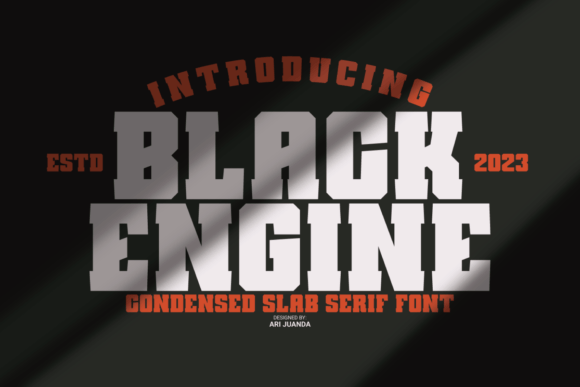
Introducing Black Engine Font: A Vintage-Inspired Slab Serif Font
The Black Engine font is a stunning, vintage-inspired slab serif font that exudes classic style and modern minimalism. With its solid foundation, strong visuals, and nostalgic motion, this font is perfect for a wide range of design projects, from jerseys and athletics branding to posters, logos, and more.
A Brief Overview of Black Engine Font
The Black Engine condensed slab serif font is built on a foundation of strength and elegance. Its vintage-inspired design makes it perfect for designers looking to add a touch of classic style to their projects. The font’s modern minimalist approach ensures that it remains clean and crisp, making it highly versatile and easy to use.
Key Features of Black Engine Font
- Vintage-Inspired Design: The Black Engine font boasts a unique, vintage-inspired design that adds a touch of classic style to any project.
- Modern Minimalist Style: Despite its vintage inspiration, the font features a modern minimalist approach that ensures it remains clean and crisp.
- Strong Visuals: The font’s solid foundation and strong visuals make it perfect for headlines, titles, and other design elements that require impact and emphasis.
- Condensed Slab Serif Design: The Black Engine font features a condensed slab serif design that makes it perfect for use in a variety of contexts, from posters and branding projects to logos and jerseys.
Use Cases for Black Engine Font
The Black Engine font is incredibly versatile and can be used in a wide range of design projects, including:
- Jerseys and Athletics Branding: The font’s strong, vintage-inspired design makes it perfect for jerseys, sports teams, and athletics branding projects.
- Posters and Flyers: The font’s bold, condensed design makes it perfect for use in posters and flyers, where impact and emphasis are key.
- Logo Design: The Black Engine font’s unique, vintage-inspired design makes it perfect for use in logo design projects, where a touch of classic style is desired.
- Branding Projects: The font’s modern minimalist approach and strong visuals make it perfect for use in branding projects, where a clean and crisp design is essential.
Benefits of Using Black Engine Font
The Black Engine font offers a range of benefits to designers, including:
- Instant Recognition: The font’s unique, vintage-inspired design ensures instant recognition and can help to establish a strong brand identity.
- Versatility: The font’s condensed slab serif design makes it perfect for use in a variety of contexts, from posters and branding projects to logos and jerseys.
- Ease of Use: The font’s modern minimalist approach ensures that it is easy to use and can be easily integrated into a wide range of design projects.
- High Impact: The font’s strong visuals and bold design make it perfect for use in headlines, titles, and other design elements that require impact and emphasis.
Design Tips for Using Black Engine Font
To get the most out of the Black Engine font, consider the following design tips:
- Use it as a Headline Font: The font’s strong visuals and bold design make it perfect for use as a headline font, where impact and emphasis are key.
- Pair it with a Sans Serif Font: The font’s vintage-inspired design pairs perfectly with sans serif fonts, which can help to create a clean and crisp contrast.
- Experiment with Colors: The font’s bold design makes it perfect for use in a variety of colors, from bold and bright to muted and pastel.
- Use it in Combination with Images: The font’s strong visuals make it perfect for use in combination with images, which can help to create a visually appealing design.
| Font Name | Black Engine Font |
The Black Engine font is a stunning, vintage-inspired slab serif font that exudes classic style and modern minimalism. With its solid foundation, strong visuals, and nostalgic motion, this font is perfect for a wide range of design projects, from jerseys and athletics branding to posters, logos, and more. Its versatility, ease of use, and high impact make it an excellent choice for designers looking to add a touch of classic style to their projects.